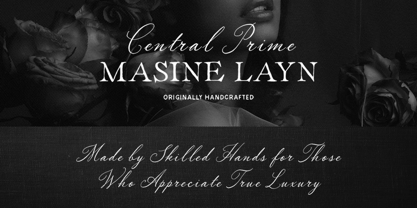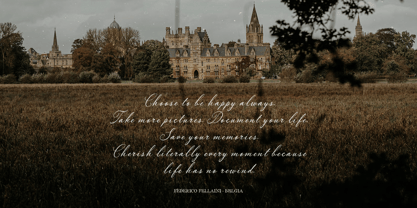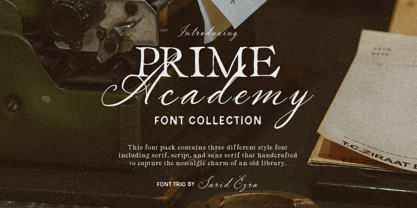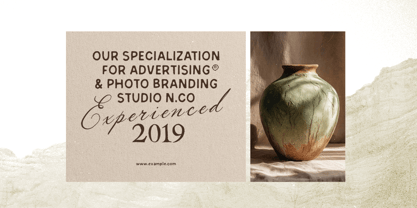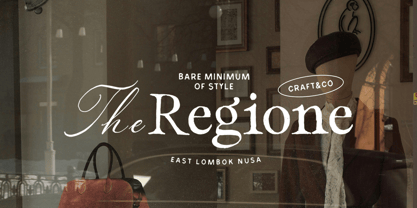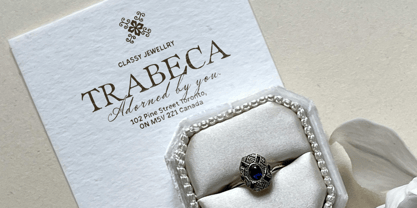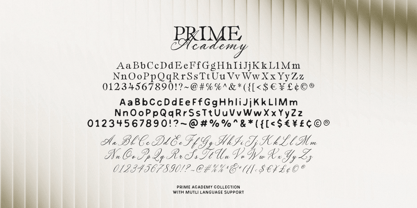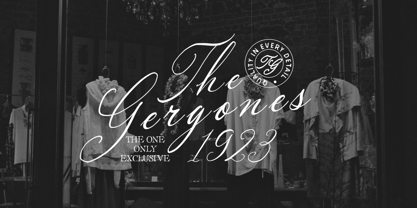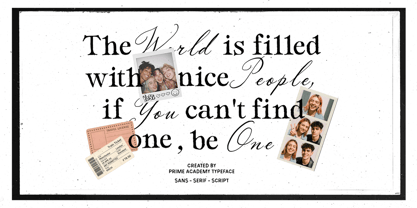
Prime Academy
von Sarid Ezra
Die Schriftfamilie Prime Academy wurde von Sarid Ezra entworfen und von Sarid Ezra veröffentlicht. Prime Academy enthält 2 Stile und Familienpaketoptionen. Mehr über diese Familie
Prime Academy is a classic and old school font collections with rough handcrafted looks. This font pack contains three different style font including serif, script, and sans serif that handcrafted to to capture the nostalgic charm of an old library. You can use this font for any purposes such as wedding invitations, logotype, branding, certificate paper, or any designs that needs classy vintage vibes. This font trio also support multi language.